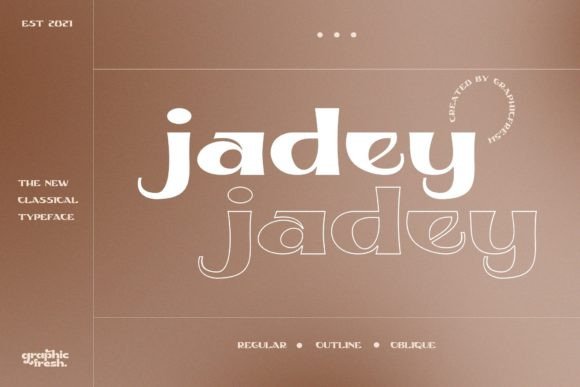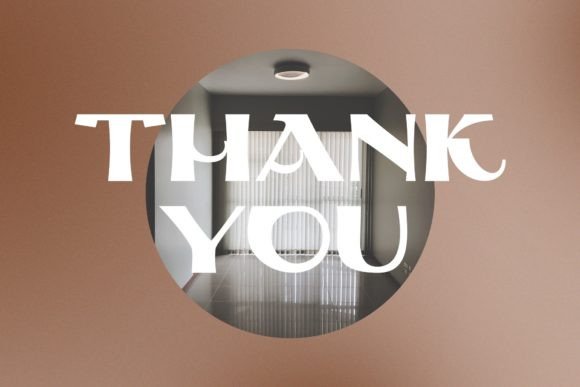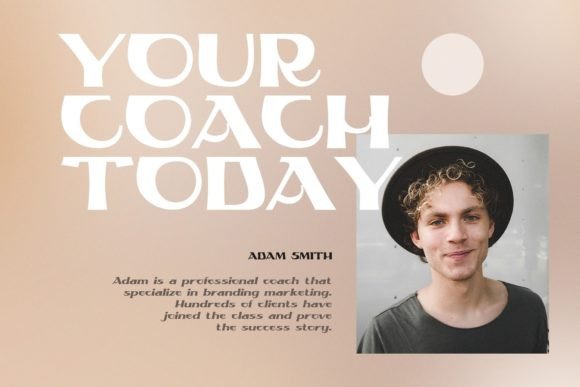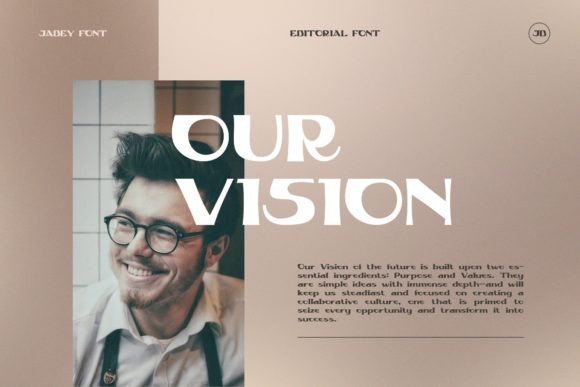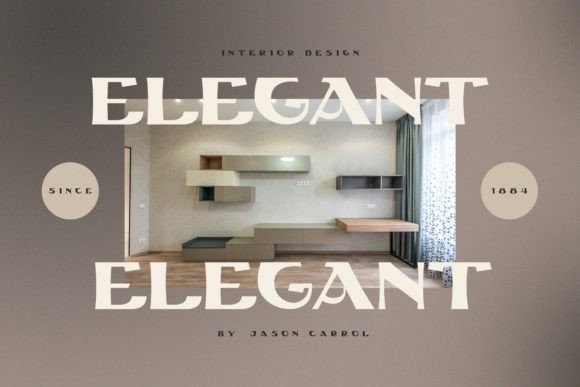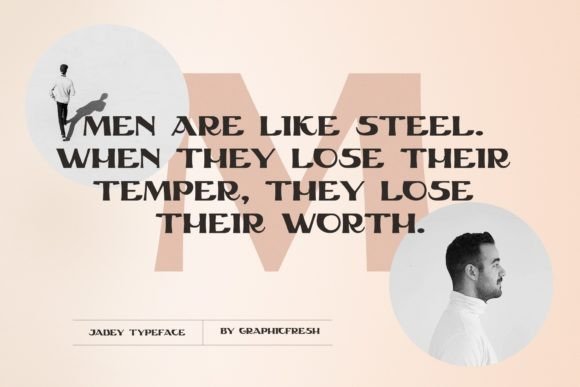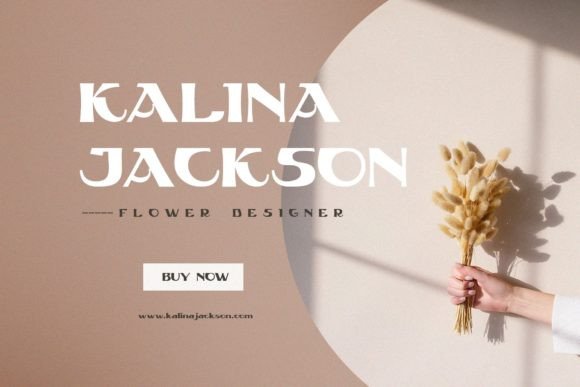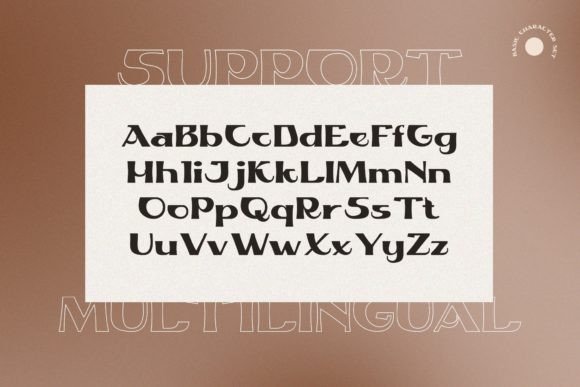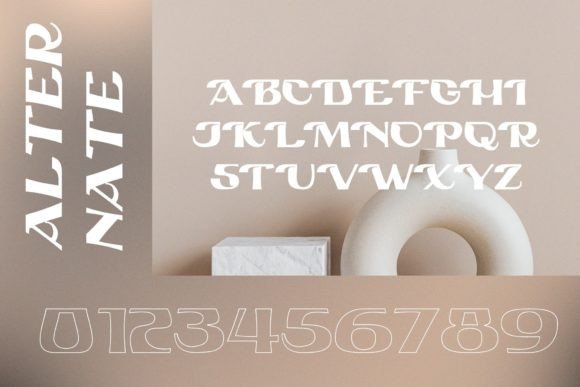
Jadey
Jadey: A Classical Slab Serif Font with Ethnic Flair
Jadey is a classical slab serif font that incorporates touches of ethnic heritage while maintaining modern versatility. This PUA-encoded typeface combines traditional elements with contemporary design potential, making all glyphs and swashes easily accessible.
Key Features of Jadey
• Classical Design: Offers traditional slab serif elements.
• Ethnic Touch: Incorporates heritage-inspired details.
• Modern Versatility: Blends well with contemporary styles.
• PUA Encoded: Provides easy access to all glyphs and swashes.
Best Uses for Jadey
Thanks to its versatile characteristics, Jadey works especially well for:
When using Jadey in your designs, keep these tips in mind:
• Try it for headlines or display text to showcase its classical style.
• Explore its swashes and glyphs for creative variations.
• Combine with modern design elements for contemporary appeal.
• Take advantage of its PUA encoding for easy character access.
To sum up, Jadey is an excellent choice for designers seeking a classical slab serif font with ethnic influences. Its ability to blend with modern design styles makes it perfect for various creative projects. Whether you’re creating traditional layouts or contemporary designs, Jadey offers the perfect mix of classical charm and modern versatility.
Furthermore, Jadey’s distinctive design allows it to shine in contexts where both heritage and modernity are key. For instance, from classical compositions to contemporary layouts, this font can elevate your projects with its unique style. Also, its PUA encoding ensures easy access to all its creative features.
In conclusion, Jadey truly captures the essence of classical typography while embracing modern design needs. Its versatility and accessibility make it a valuable tool for creative expression. Therefore, for those wanting to add a touch of classical elegance with ethnic flair to their work, Jadey can enhance any design with its distinctive style. Ultimately, it’s perfect for designers aiming to make a sophisticated impact while having fun with creative possibilities.